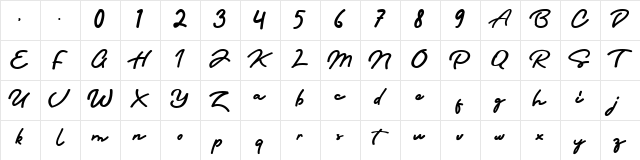
Sri Kandi Regular
| Foundry | Arendxstudio |
| Designer | Arendxstudio |
Design Context for Sri Kandi Typeface
Sri Kandi is a composed and adaptable typeface that performs quietly and consistently across a wide range of design contexts.